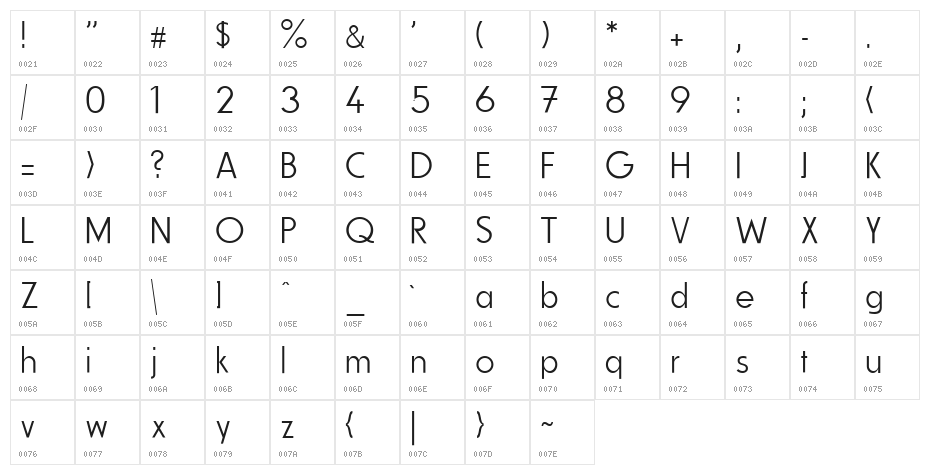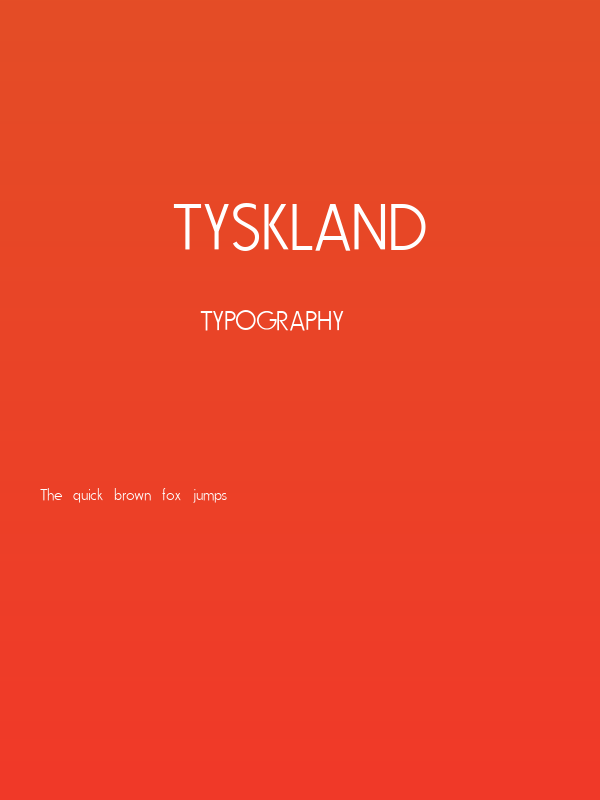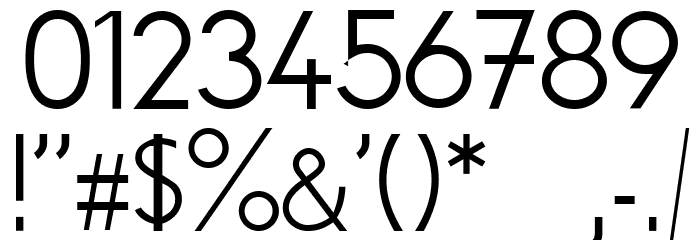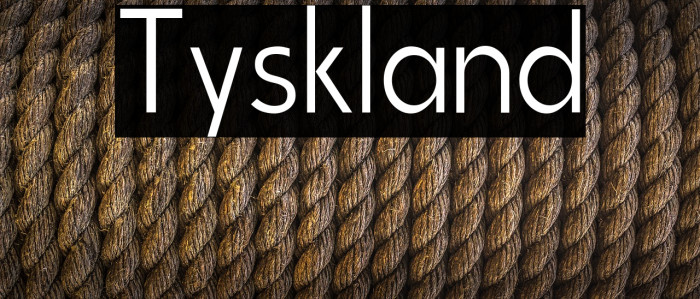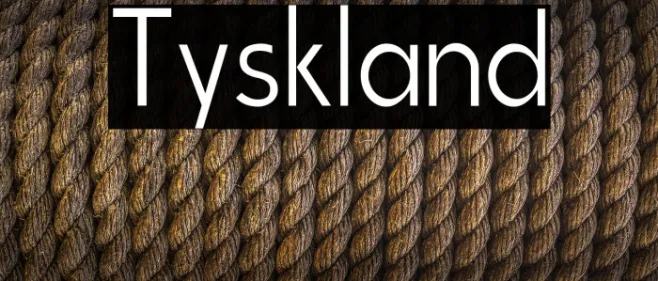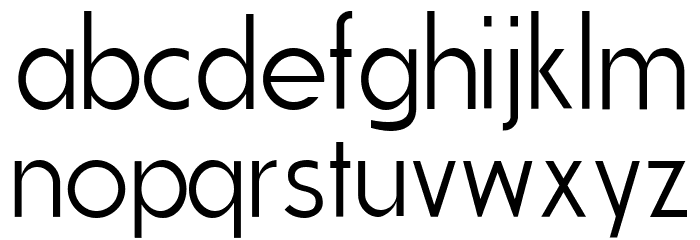
Tyskland Font
Tyskland Description
This font is a sleek and modern sans-serif typeface characterized by its clean lines and geometric shapes. The uniform stroke width and minimalistic design give it a contemporary feel, making it highly legible and versatile. The uppercase letters are bold and commanding, while the lowercase letters maintain a consistent and harmonious flow. The numerals are clear and distinct, ensuring readability in various contexts. Special characters are well-integrated, maintaining the overall aesthetic of the typeface. This font is suitable for a wide range of applications, from digital interfaces to print media.
| Proposed Projects | Ideal for branding, web design, advertising, and editorial layouts. |